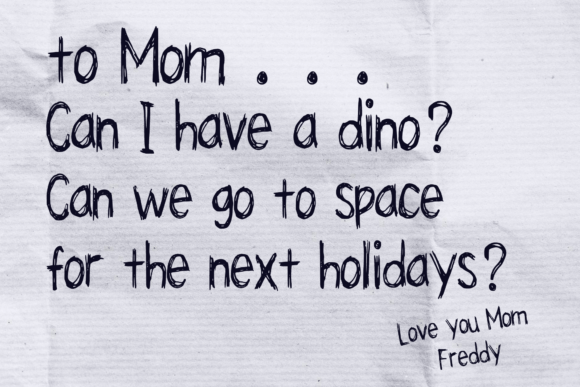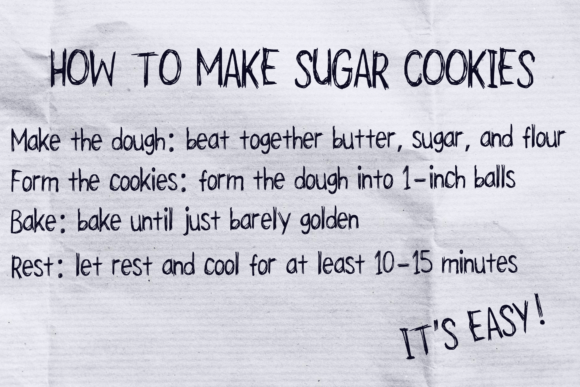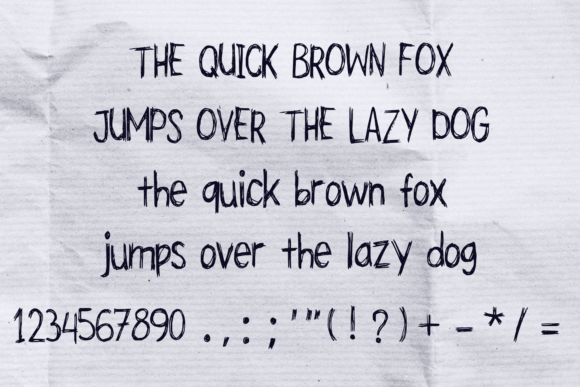
Introduction to Scratchy Scribble Font
Have you ever found yourself stuck in a creative rut, frantically searching for the perfect design element to elevate your project? I’ve been there too! But then, it happens – a spark of inspiration strikes, and you stumble upon the perfect design resource. For me, that spark was the discovery of the Scratchy Scribble Font.
This playful, sketchy handwriting font is a game-changer for designers looking to add a unique touch to their creative projects. Whether you’re working on a magazine cover, a comic book, or even a simple sticker design, the Scratchy Scribble Font is sure to bring a high-quality, eye-catching element to your work.
Key Features of Scratchy Scribble Font
- Unique, hand-drawn design with a distressed and playful feel, perfect for creative projects.
- Perfect for adding a touch of whimsy and personality to your creative project, from branding and marketing materials to digital art and more.
Honest Review: Scratchy Scribble Font
I recently had the chance to experiment with the Scratchy Scribble Font for a creative project, and I must say it was a delightful experience. This design resource is perfect for anyone looking to add a touch of whimsy and playfulness to their work.
- High-quality texture that adds a unique dimension to any design ✨
- Limited font styles, which may not be suitable for complex or multi-page designs ⚠️
- No bold or italic font options, which can be a drawback for certain design projects ⚠️
Overall, I was impressed with the Scratchy Scribble Font’s potential for adding a creative touch to any design project. While it may have some limitations, it’s a fantastic free download for designers looking to inject some personality into their work.
The Scratchy Scribble Font is a unique and creative design resource that can add a personal touch to any project. This high-quality font is perfect for those who want to add a little texture and whimsy to their designs.
– Add the font to your designs to give them a unique and creative feel.
To get the most out of the Scratchy Scribble Font, try using it on a transparent background to give it a sense of depth and dimension. You can also experiment with different font sizes and colors to add emphasis and visual interest to your designs.
The Scratchy Scribble Font is perfect for a variety of creative projects, including:
- Illustration
- Typography